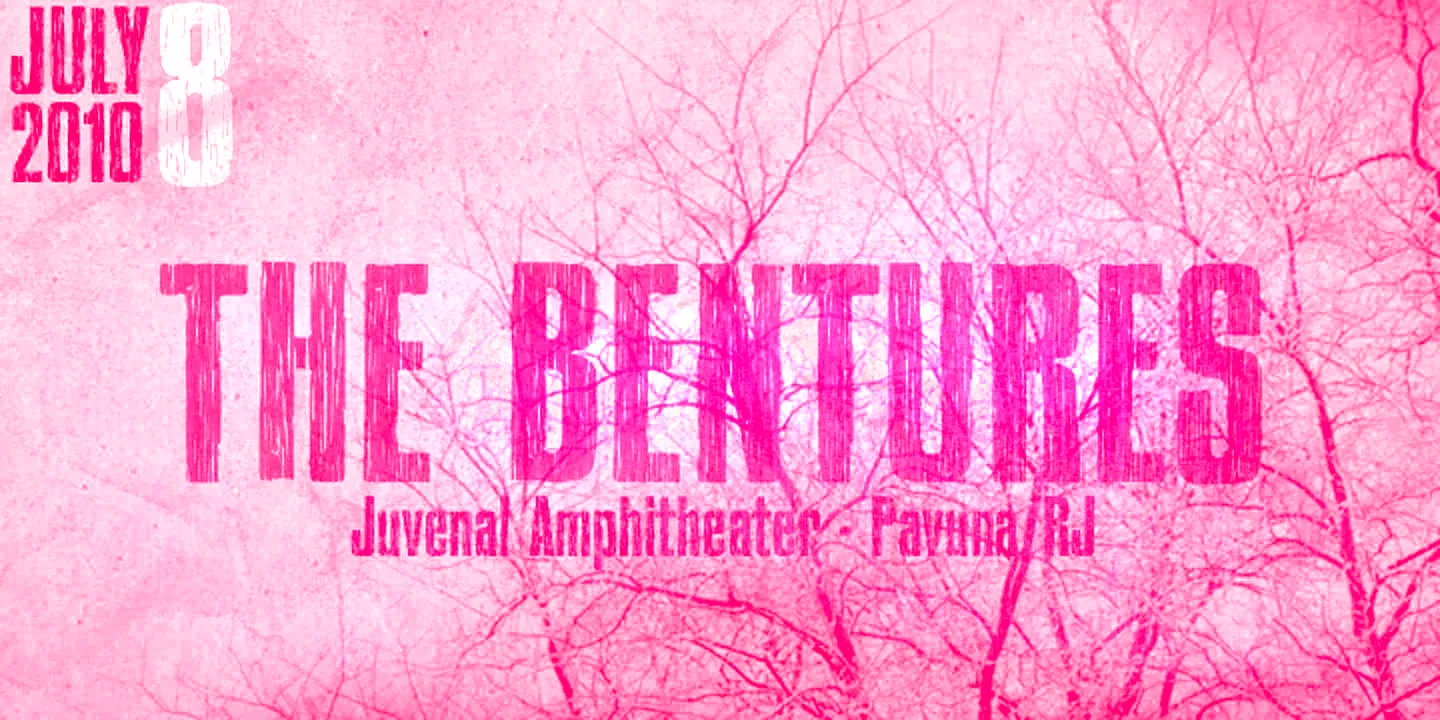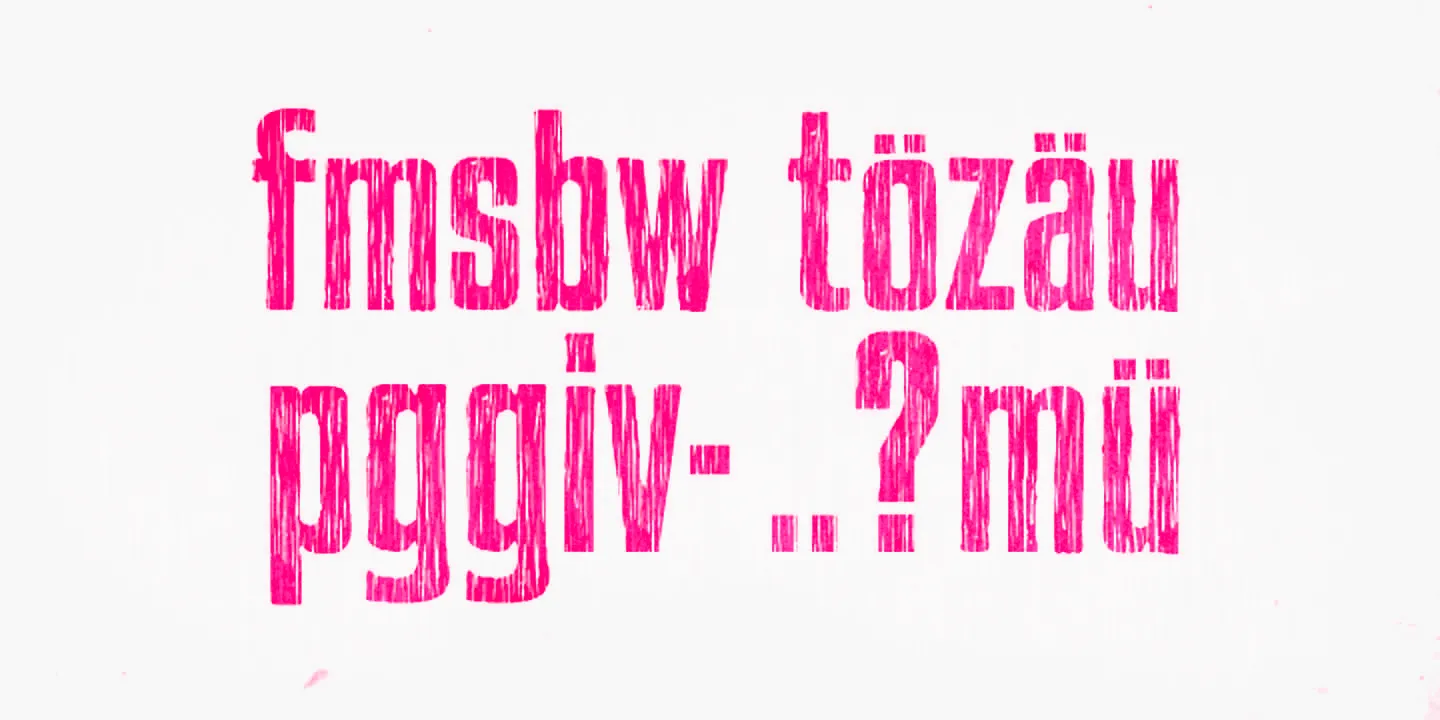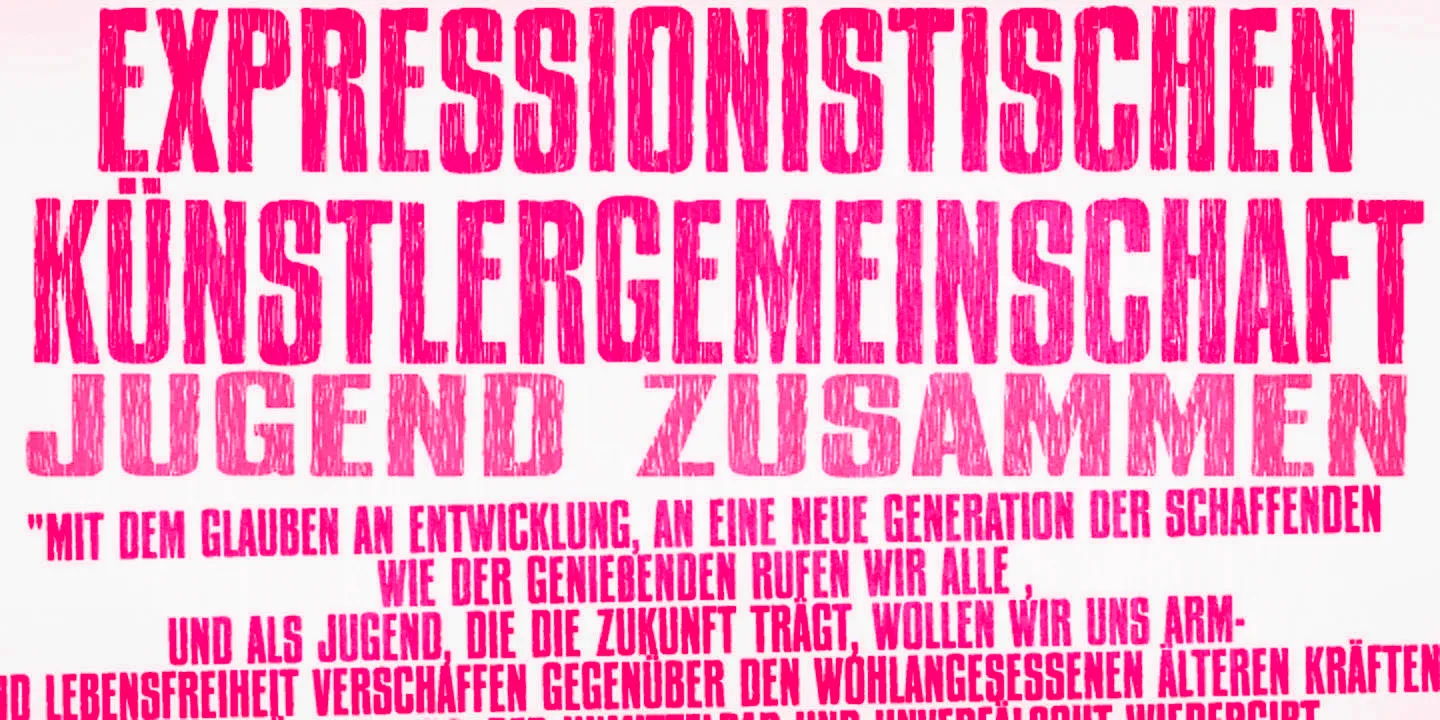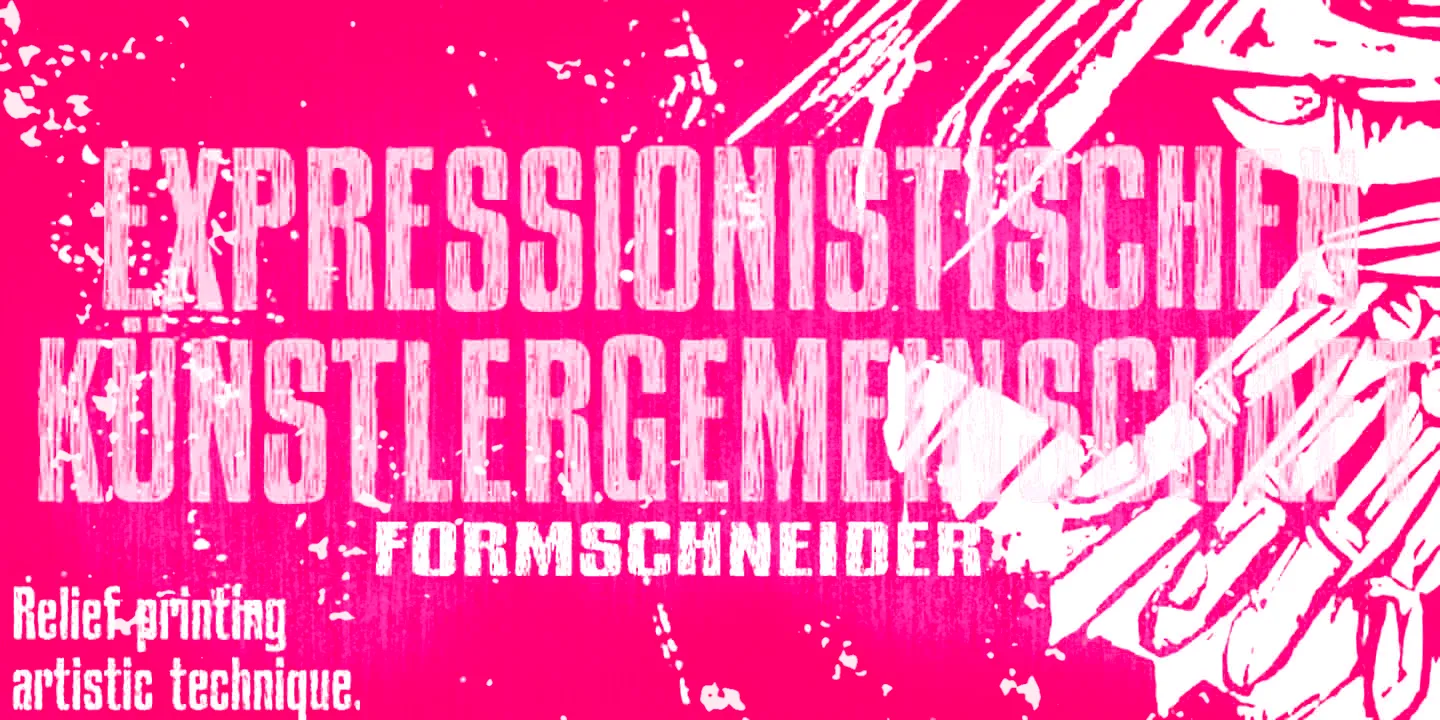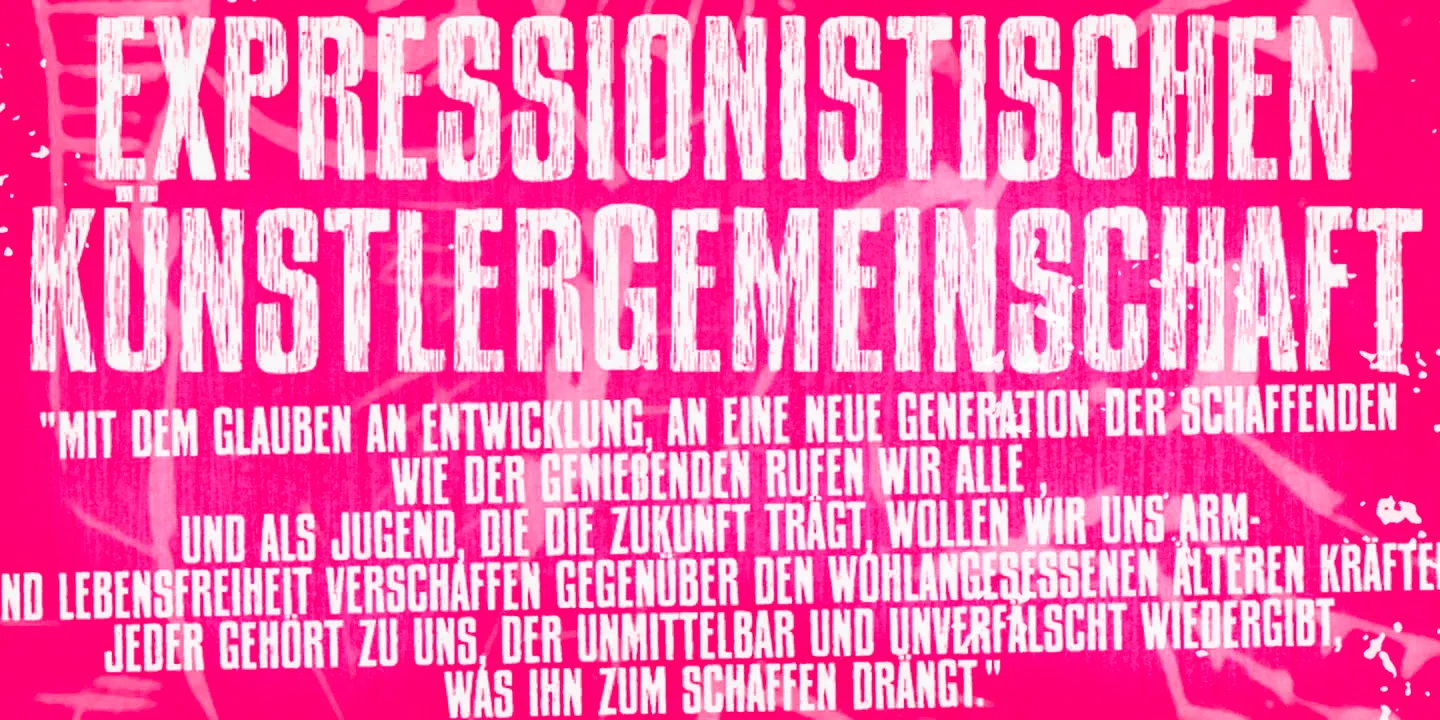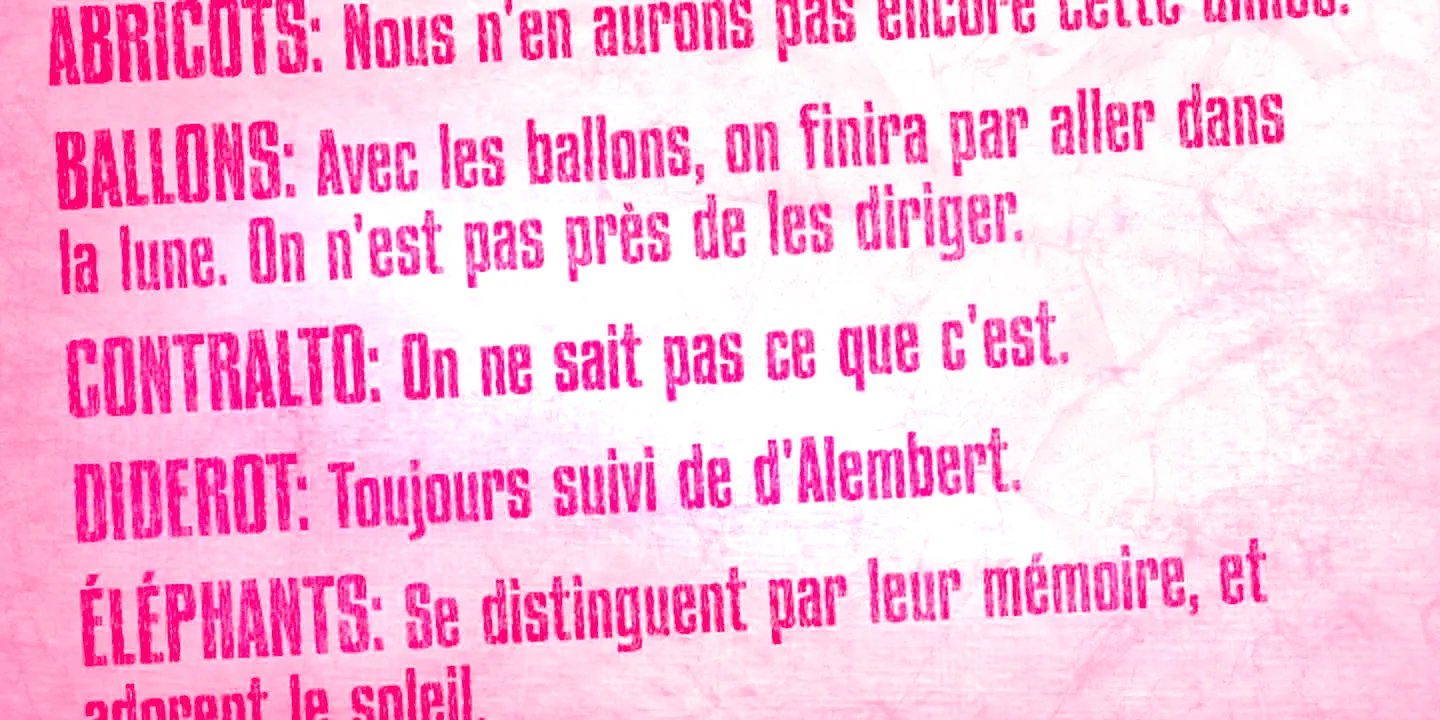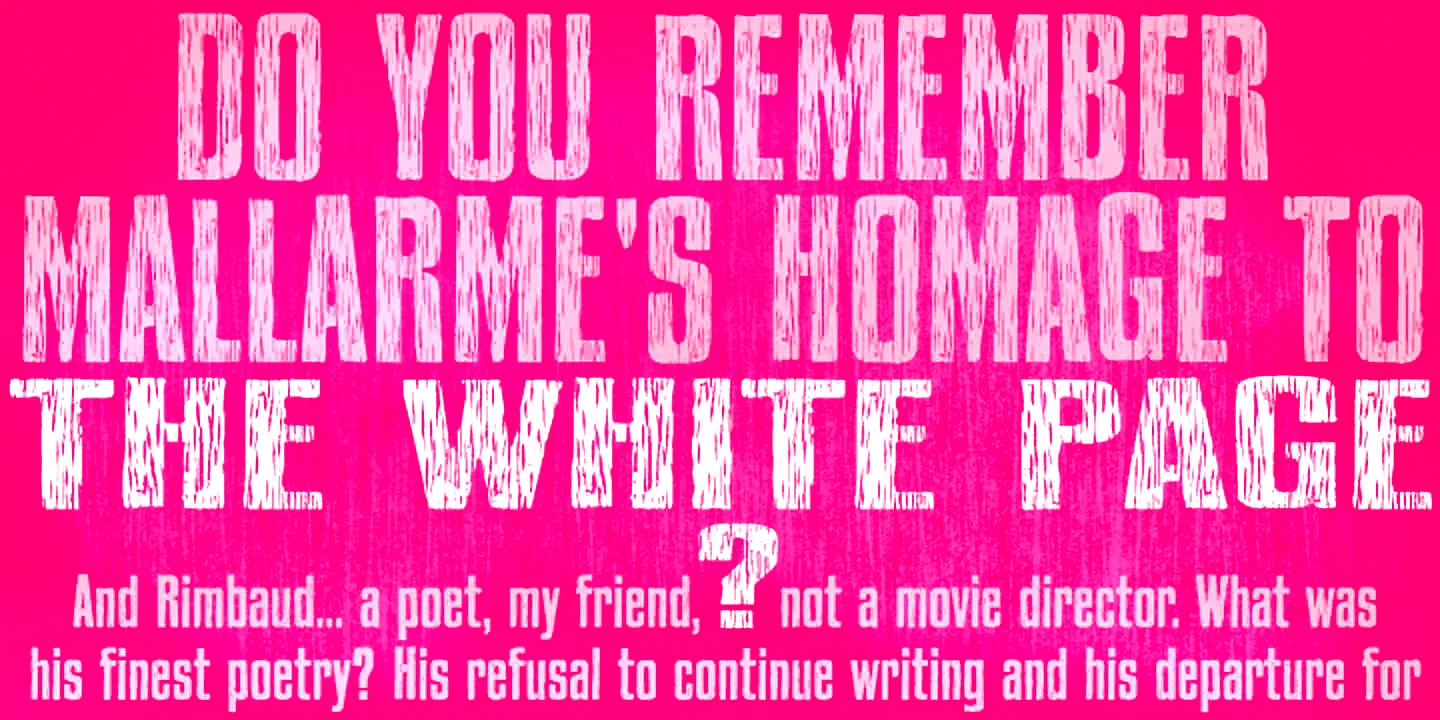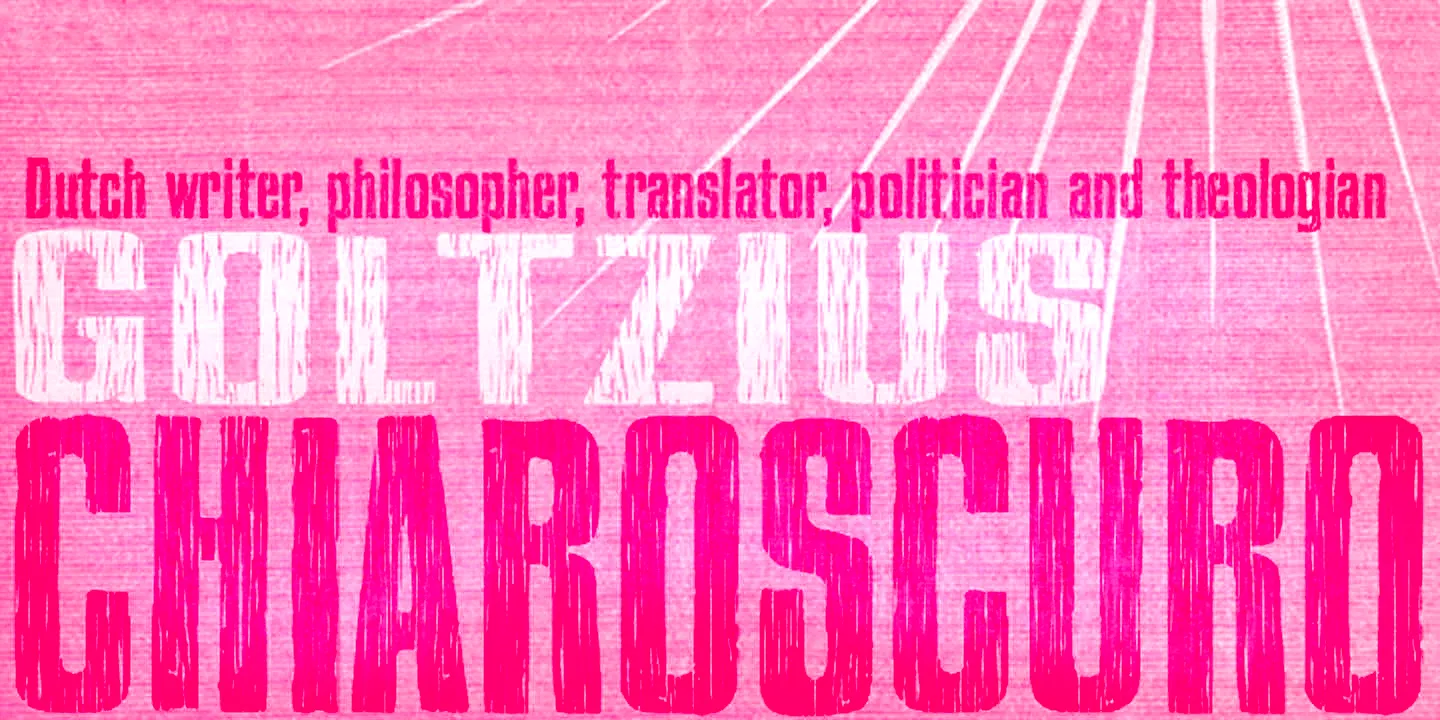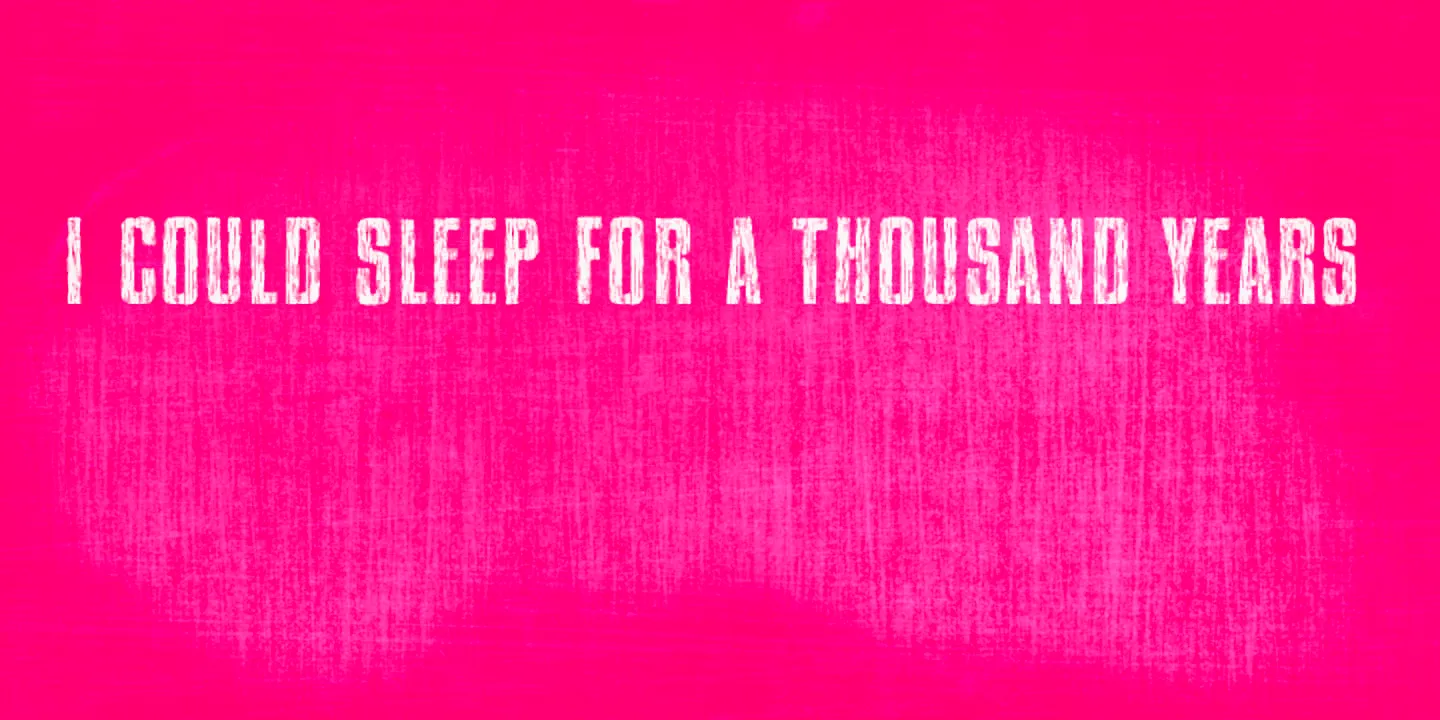
Xylo Sans
Xylo Sans is a textured, gaspipe-style sans serif. The letterforms are based on a typeface from the Miller & Richard type foundry circa 1911. Useful for anything needing something more rough and ready. The wood texture adds a sense of the outdoors and nature. It could also be used to inject a little ruggedness into food packaging, magazine spreads, movie posters, and book covers.